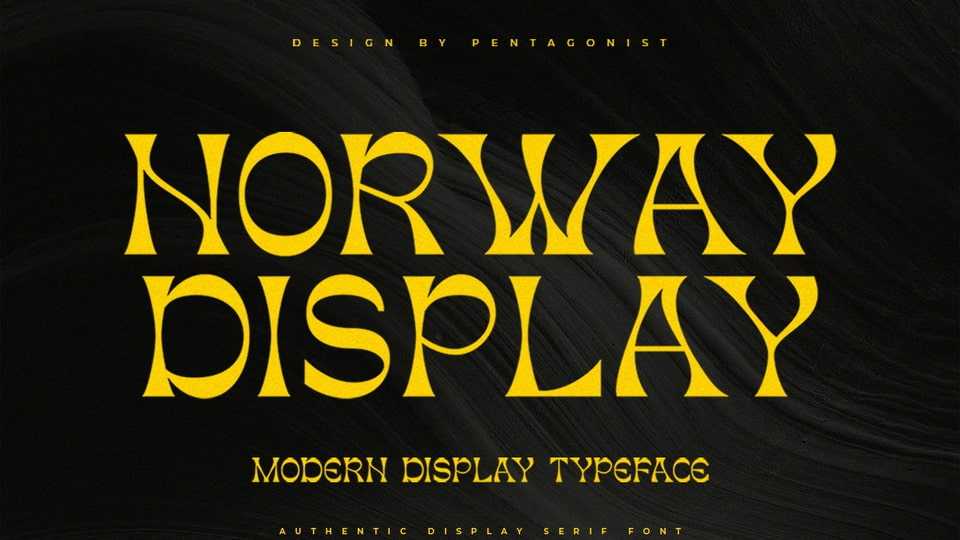
Download Norway font, an authentic reverse contrast display typeface inspired by classic characters. Norway font has a classic shape with a modern touch on its curves.
Designer: Pentagonistudio